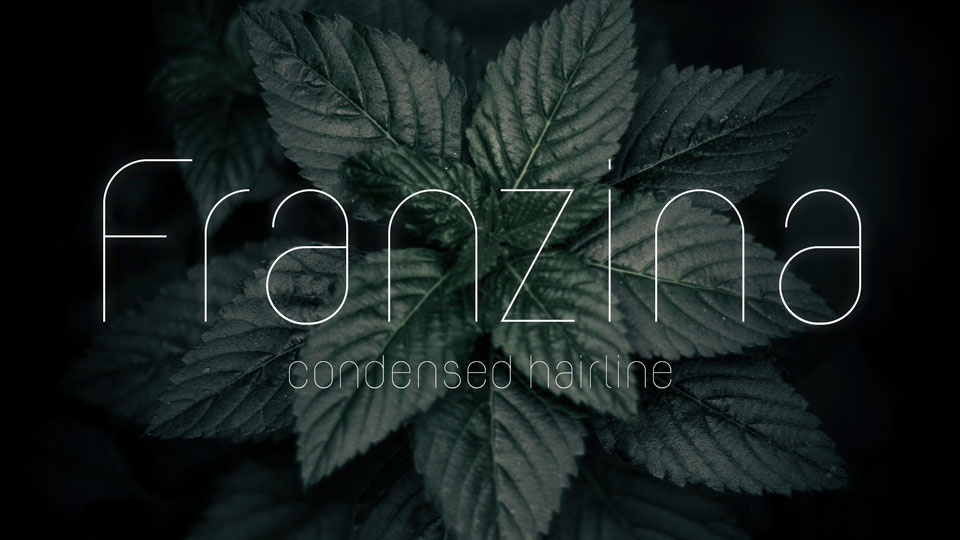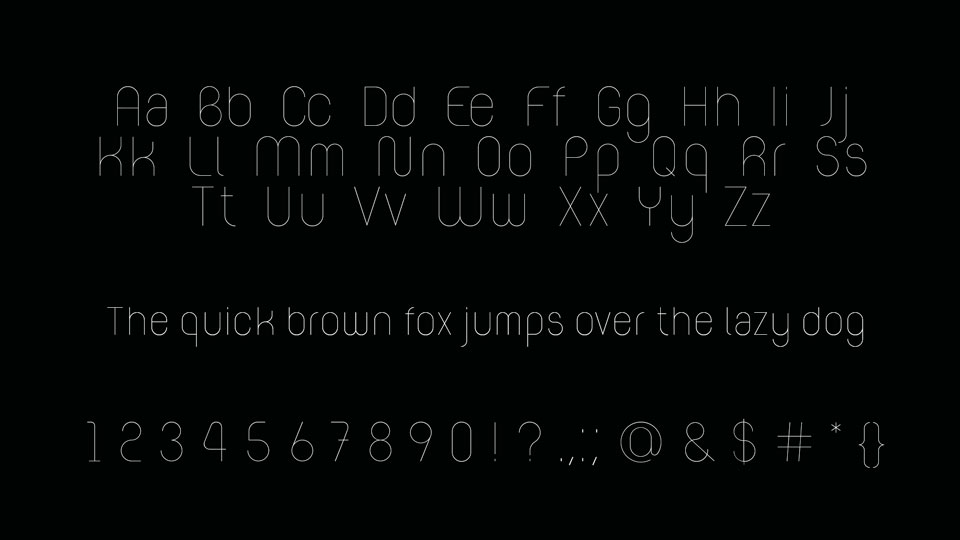
Franzina is a condensed hairline typeface designed “just for fun/love” inspired by the irony of the beauty of thinness. Using the simplicity of typography forms and some delicated curves, this font seeks a subtle romanticism.
Franzina has elements that it becomes a font for titles. And your best view is when it’s used in large size. A shy sensuality can also stand out.